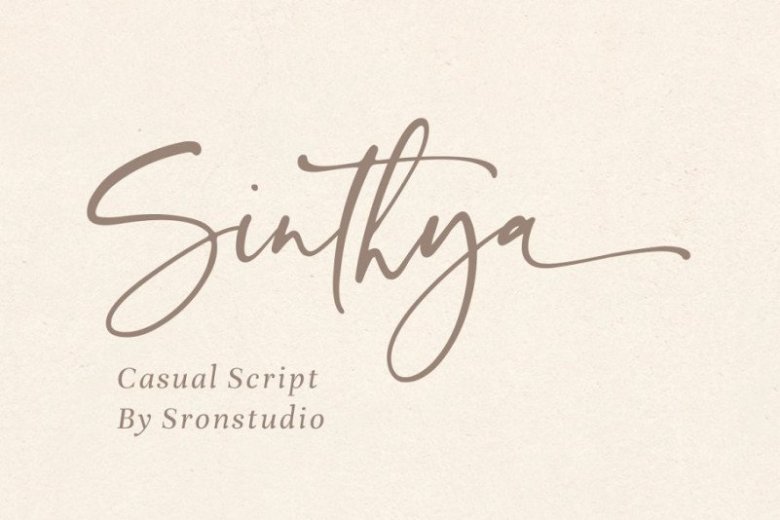
Sinthya Script Font
Sinthya Font – This is a seductive font that is made with a touch of elegance and feeling to give the best touch. a mixture of copper calligraphy with handleting style. Designed to bring style elegance. Sinthya designed and shared by Sronstudio. Sinthya is a natural handwritten font, this font Is perfect for logo, invitation, stationery, wedding designs, social media posts, advertisements, product packaging, product designs, label, photography, watermark, special events or anything. Sinthya comes with full set of uppercase and lowercase letters, lowercase beginning & ending swashes , multilingual symbols, numerals, punctuation.